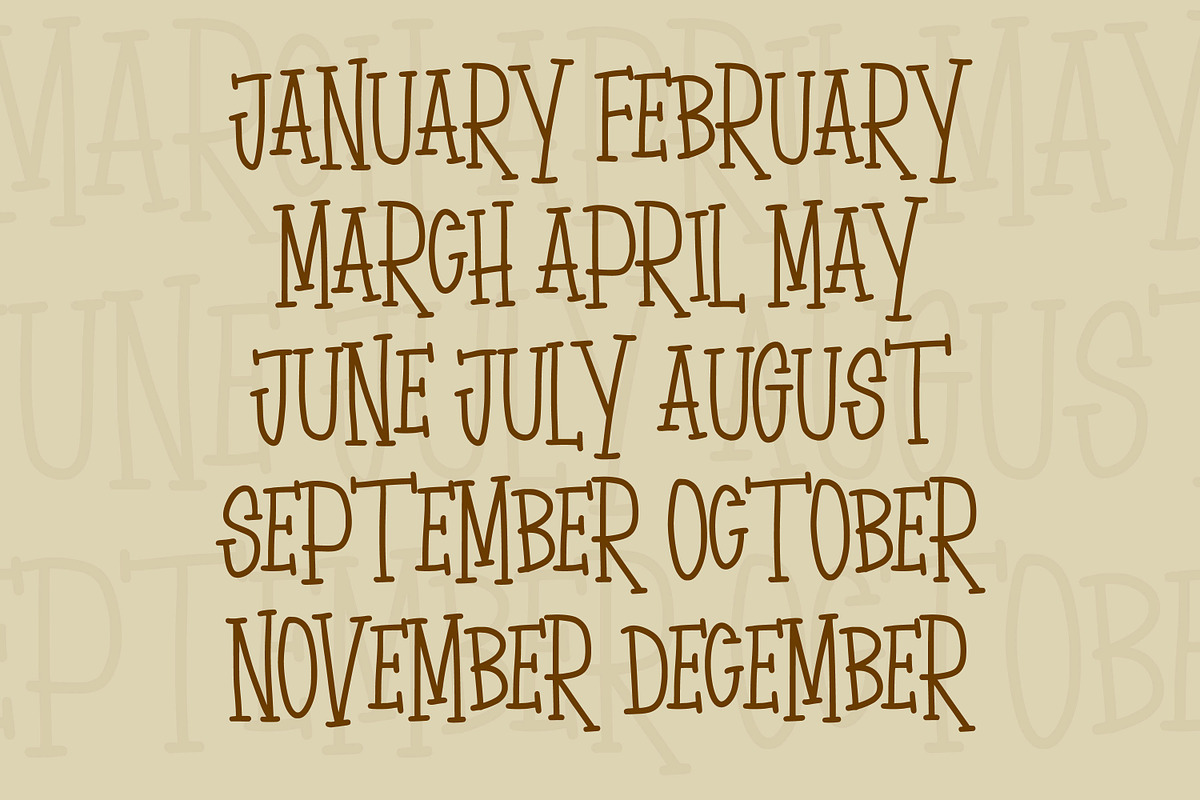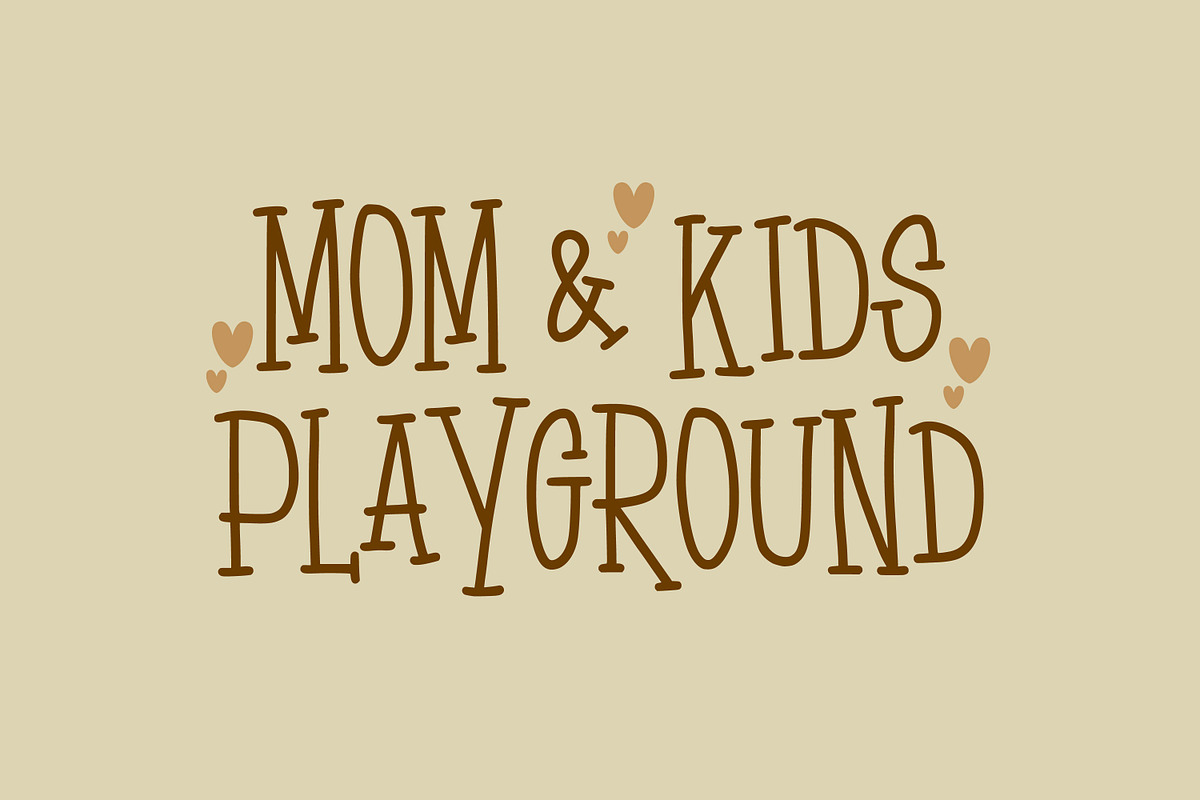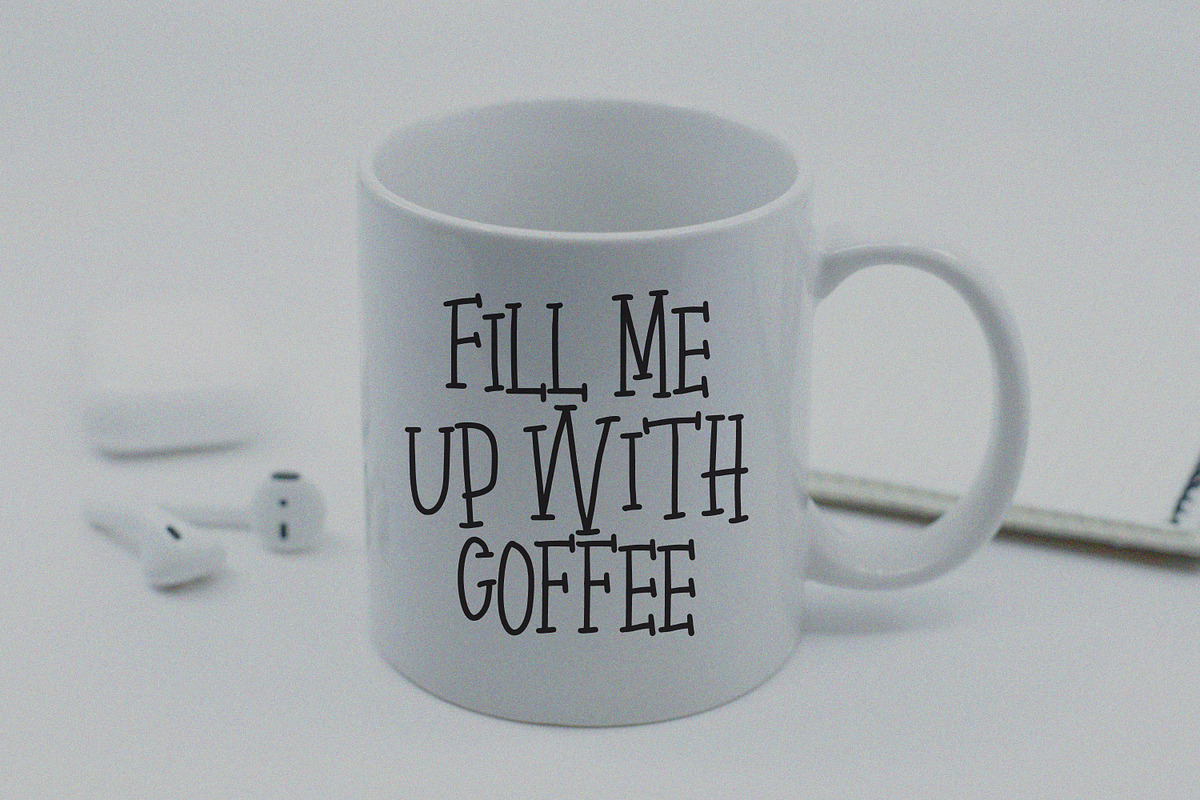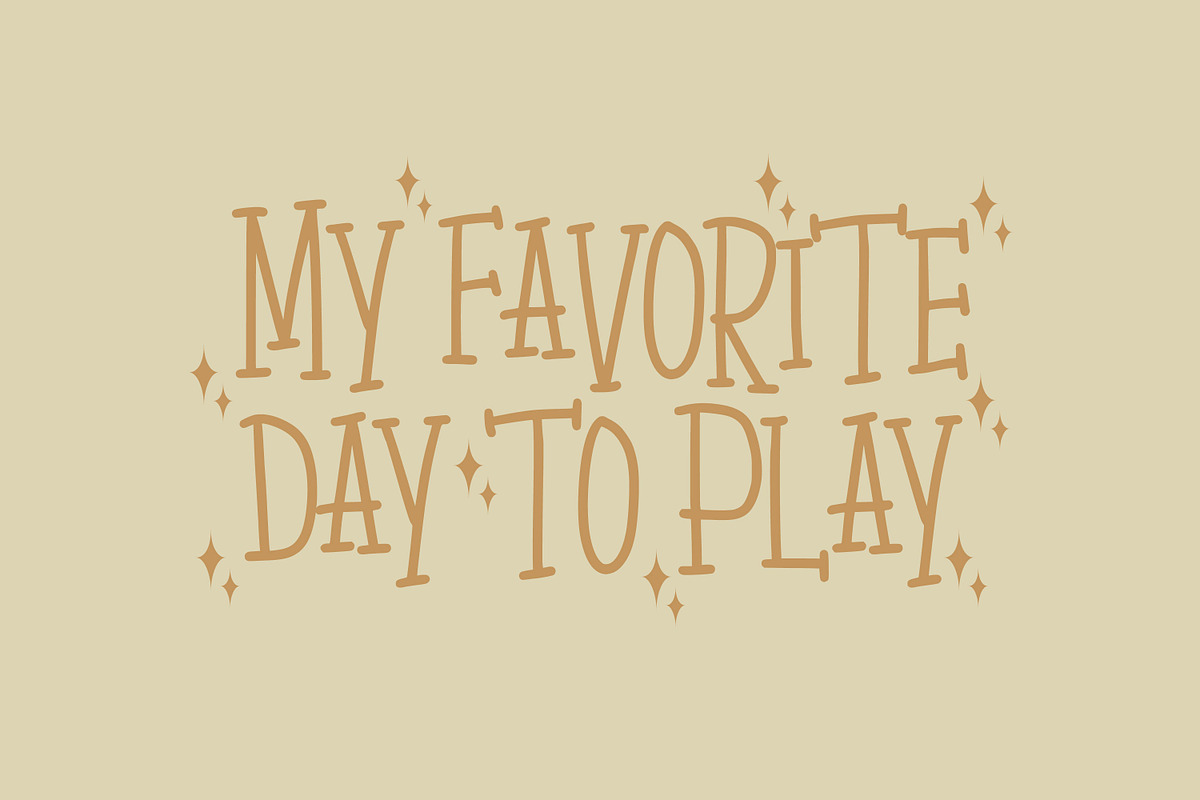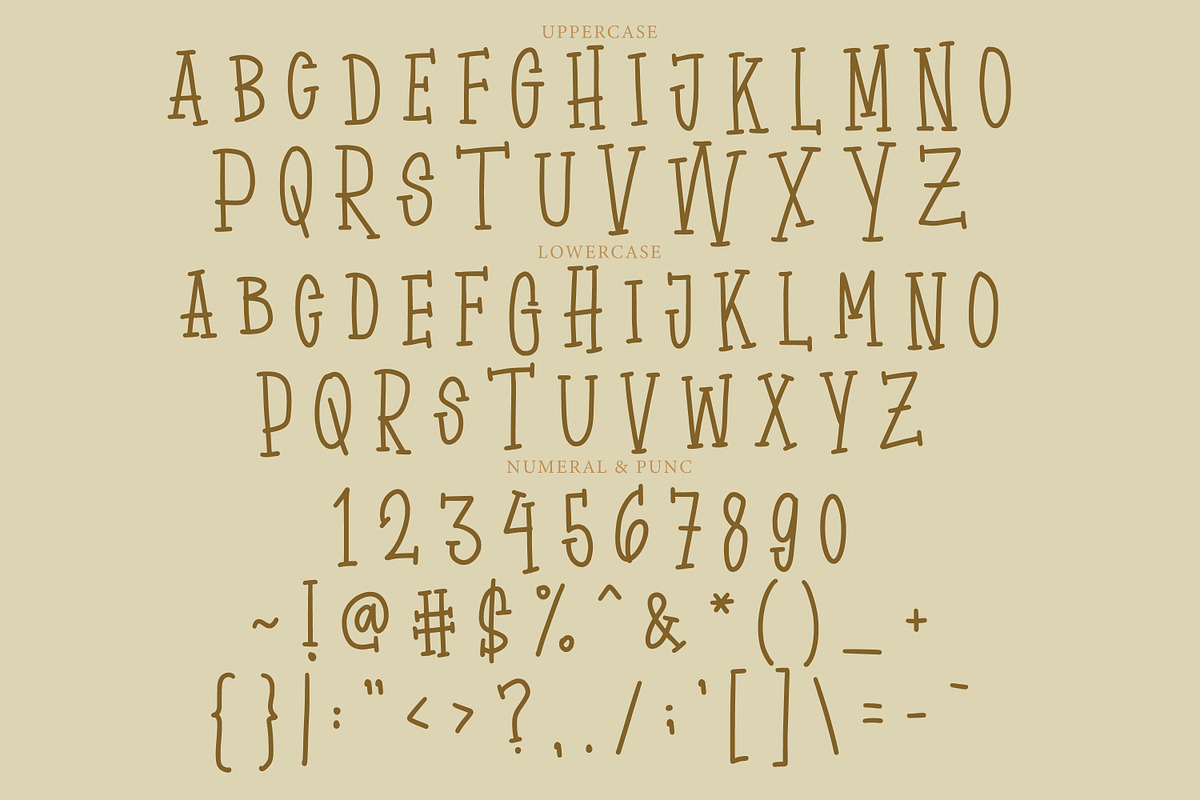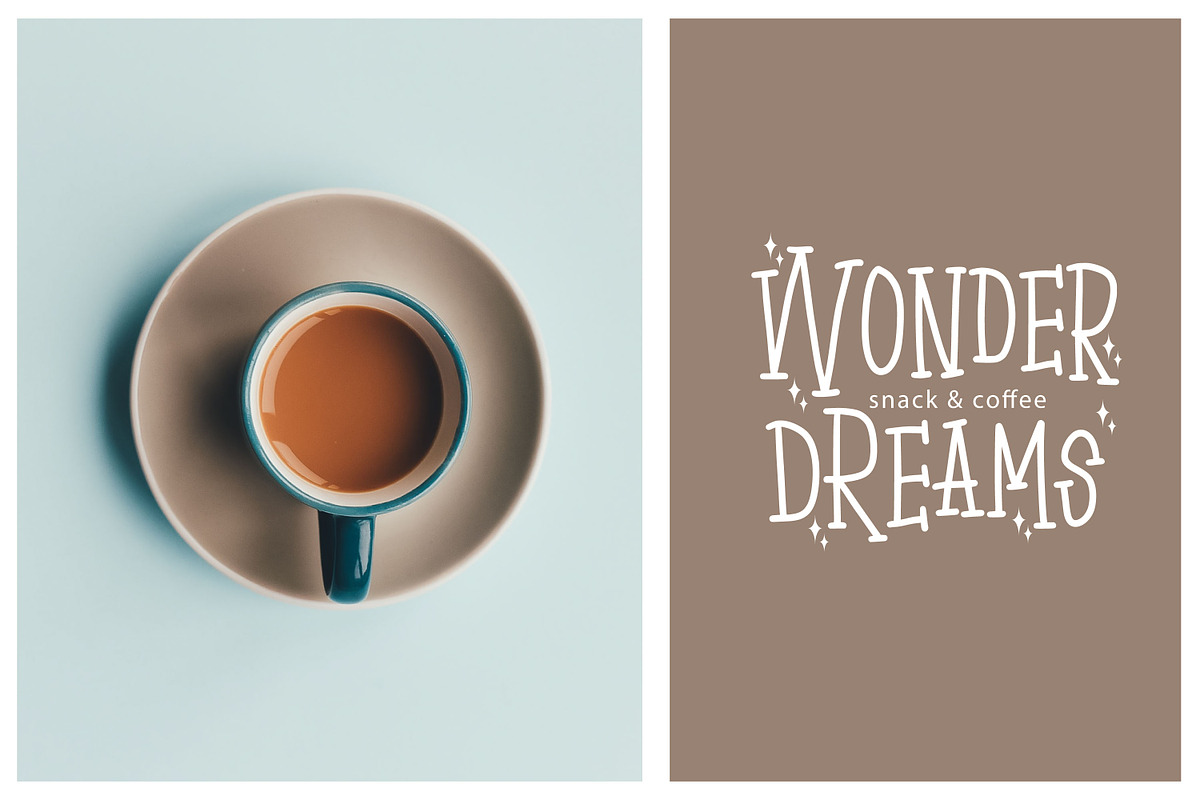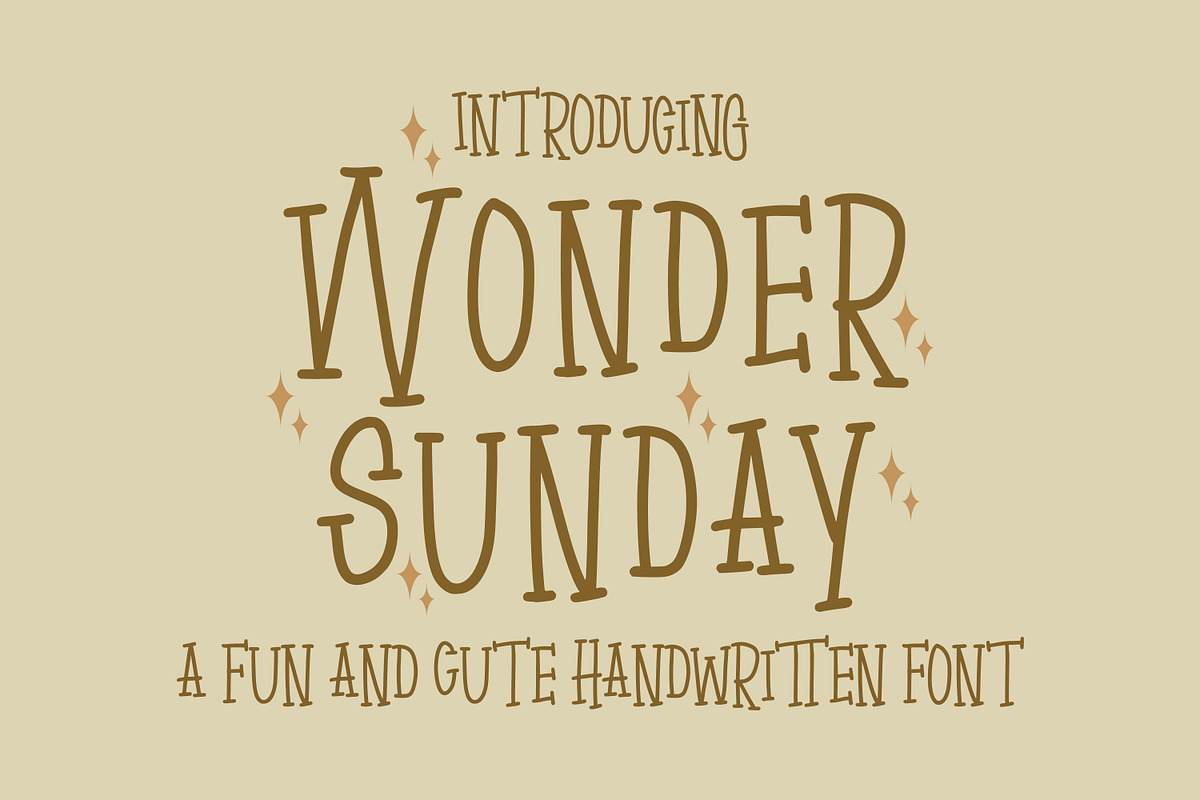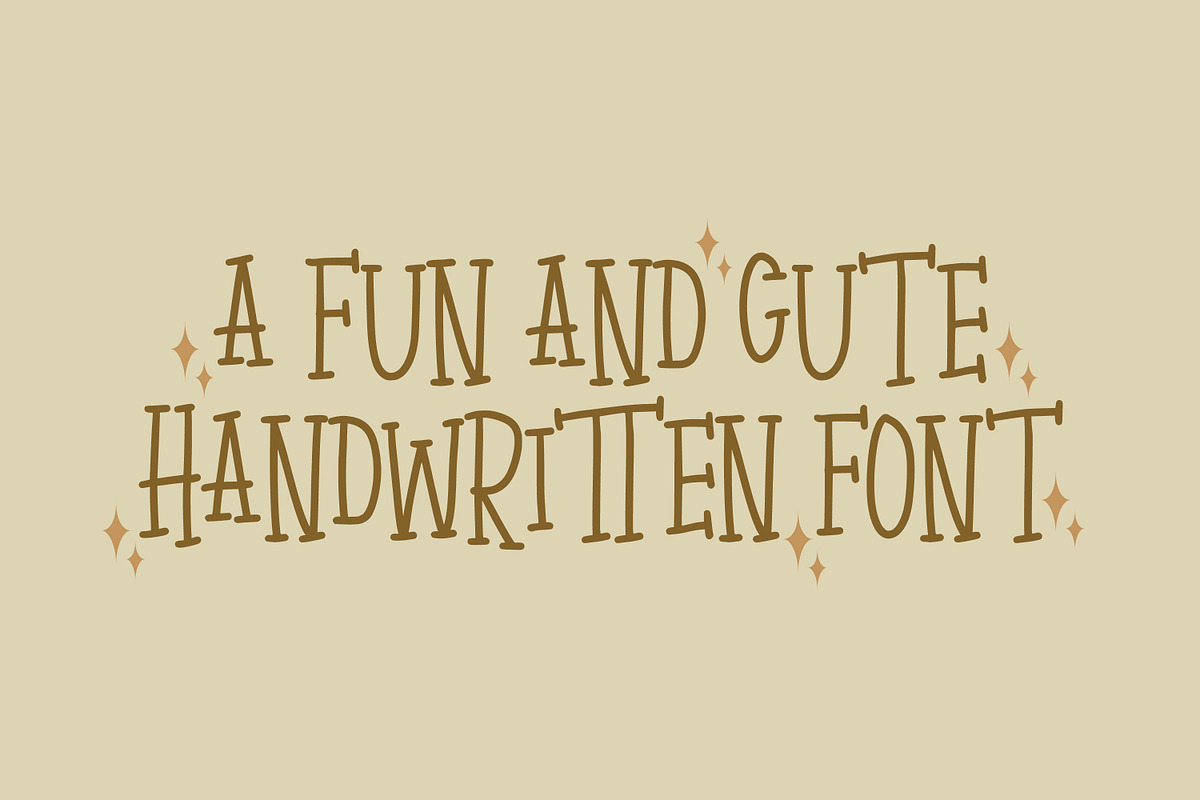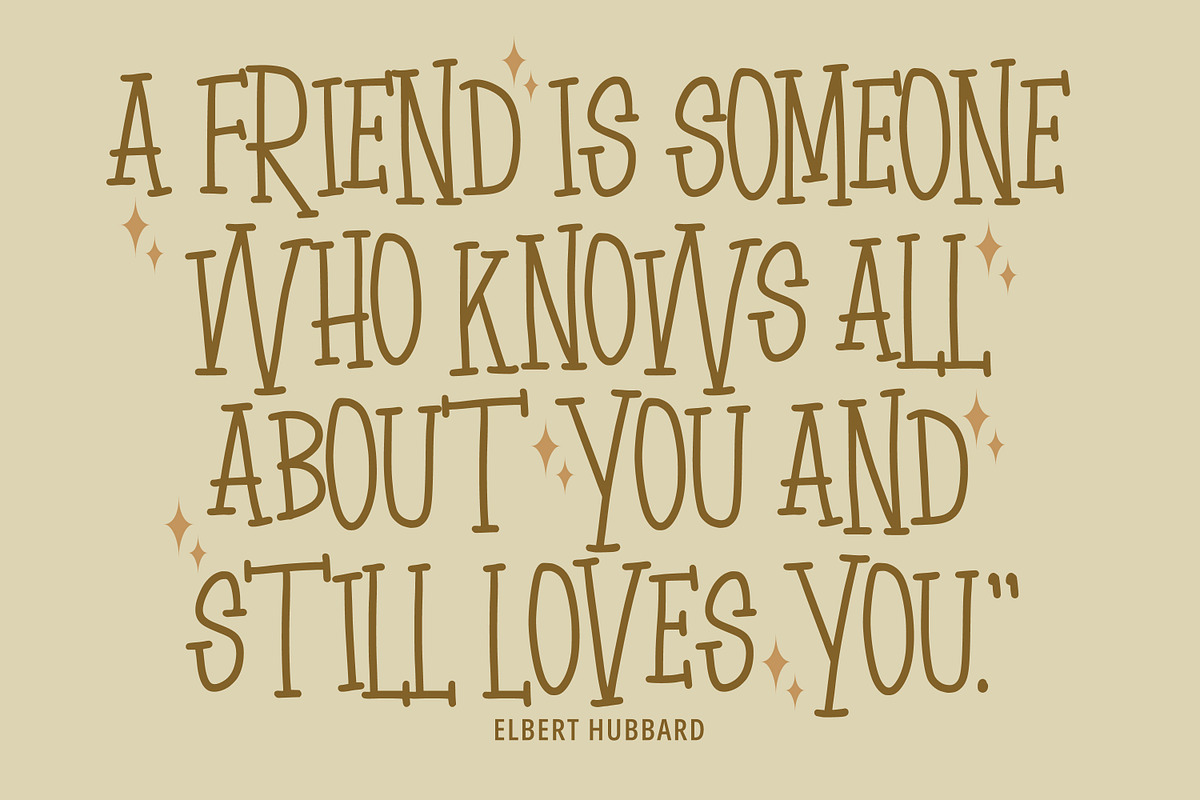
Wonder Sunday - Cute Display
Wonder Sunday font a display typeface awesome character regular. Wonder Sunday font it’s perfect for namecard, poster, logo, magazine, cover, banner, tshirt and headers, or even large-scale artwork.
- Multilingual support ÀÁÂÃÄÅÇEÈÉÊËIÌÍÎÏNÑOØÒÓÔÕÖUÙÜÚÛWYÝŸŸÆ